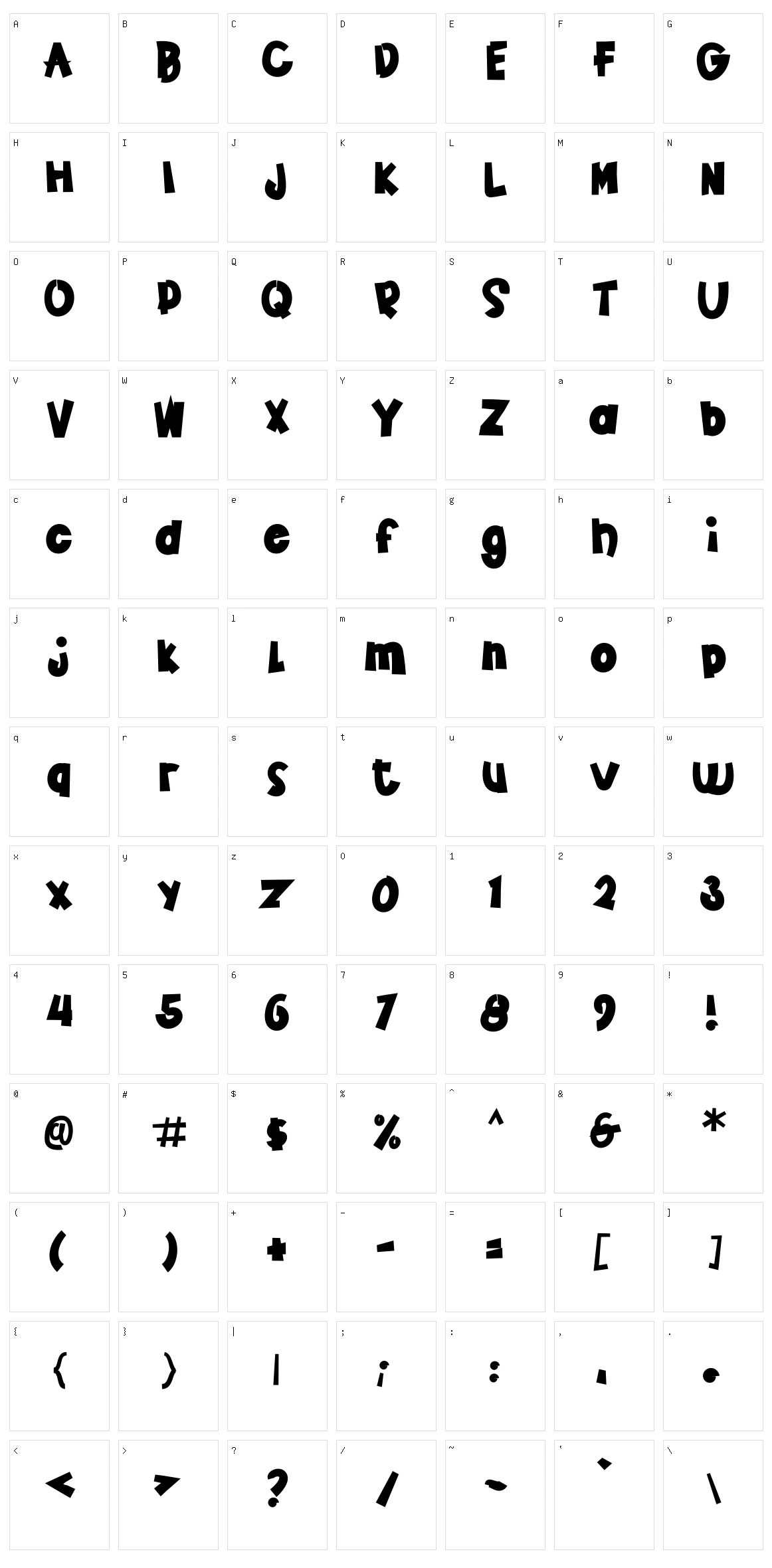
The free font Comic Dylans is carefully designed by StringLabs Creative Studio, showcasing a thoughtful balance of creativity and usability and falls under the Cartoon font style. When you download the ZIP file, it contains only 101.27 KB of font files, making it lightweight and quick to download. Please review the license details below to understand permitted usage and distribution rights. If license information is not available, we recommend using this font for personal projects only or contacting the author directly for commercial usage permissions.